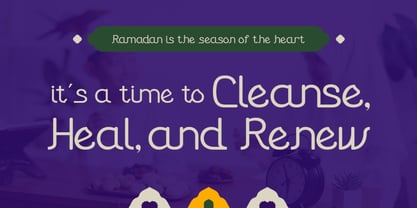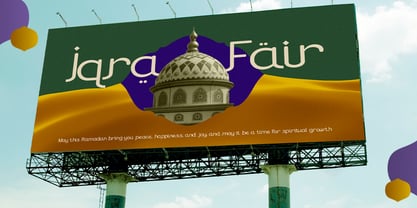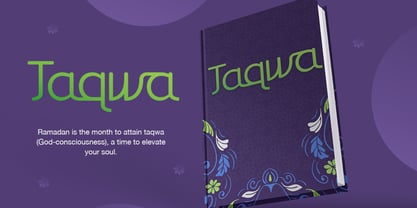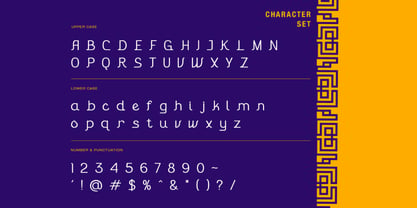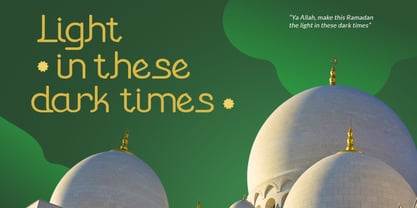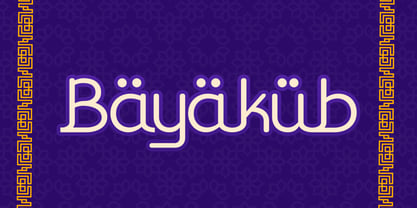
Bayakub
Bayakub Islamic Modern Font is a creative rounded display font inspired by traditional Islamic art and modern geometric structure. Designed with cultural precision, its bold yet soft letterforms evoke a sense of harmony between contemporary aesthetics and Middle Eastern heritage. Suitable for eid mubarak, islamic tech, halal product, mosque logo, arabic packaging, muslim festival, cultural branding, islamic startup, modern hijab brand, middle eastern design, festive headline, arabic theme, islamic invitation, decorative poster, cultural web design, bilingual layout, rounded typeface, branding font, creative logo, islamic modern.